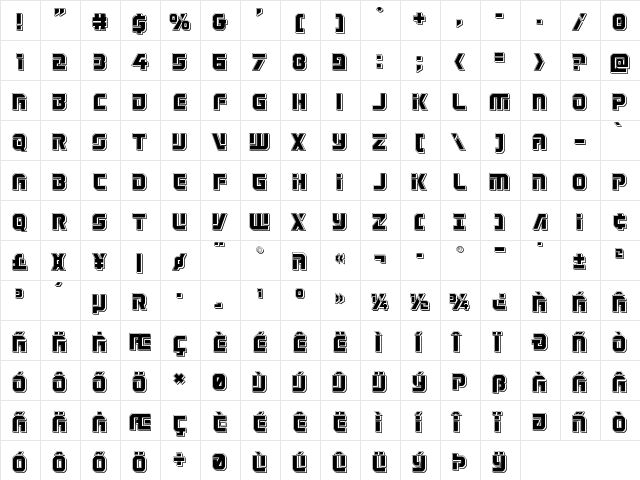
Legio Sabina Punch Regular
Design Context for Legio Sabina Punch Typeface
Legio Sabina Punch is a composed and adaptable typeface that performs quietly and consistently across a wide range of design contexts.